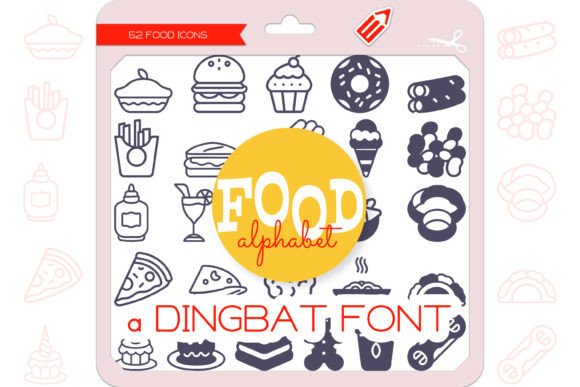
Food Alphabet Font: A Delicious Way to Add Creativity to Your Designs
Are you looking for a unique and creative way to add some flavor to your designs? Look no further than the Food Alphabet Font! This adorable dingbat font features 52 food icons, each representing a letter of the alphabet from A to Z. With two styles to choose from – Outline and Filled-Outline – you can add a touch of whimsy and personality to your projects.
Key Features of Food Alphabet Font
- 52 Food Icons: Each letter of the alphabet from A to Z is represented by a unique food icon, perfect for adding a culinary twist to your designs.
- 2 Styles: Choose from Outline and Filled-Outline styles to suit your design needs.
- Dingbat Font: Food Alphabet Font is a dingbat font, making it easy to use and customize.
Benefits of Using Food Alphabet Font
- Adds Creativity: With its unique food icons, Food Alphabet Font adds a touch of creativity and personality to your designs.
- Perfect for Foodies: If you’re working on a project related to food, cooking, or restaurants, this font is a must-have.
- Kids and Adults Alike: The cute and playful design of Food Alphabet Font appeals to both kids and adults, making it perfect for a wide range of projects.
- Customizable: With two styles to choose from, you can customize the font to suit your design needs.
Uses for Food Alphabet Font
- Food Blogs: Add a touch of personality to your food blog with Food Alphabet Font.
- Restaurant Menus: Use the font to create eye-catching menus for your restaurant or cafe.
- Recipe Cards: Add a cute and playful touch to your recipe cards with Food Alphabet Font.
- Kids’ Projects: The font is perfect for kids’ projects, such as alphabet worksheets, coloring pages, and more.
- Graphic Design: Use Food Alphabet Font in your graphic design projects, such as brochures, flyers, and posters.
Get Inspired with Food Alphabet Font
Example 1: Food Blog
Use Food Alphabet Font to create a header for your food blog, featuring a different food icon for each letter of the alphabet.
Example 2: Restaurant Menu
Create a menu for your restaurant or cafe featuring Food Alphabet Font, with each dish represented by a corresponding food icon.
Example 3: Kids’ Alphabet Worksheet
Use Food Alphabet Font to create a fun and interactive alphabet worksheet for kids, featuring a different food icon for each letter of the alphabet.
- Font Type: Dingbat Font
- Characters: 52 food icons (A-Z, 2 styles)
| Font Name | Food Alphabet Font |
| Author | WADLEN |